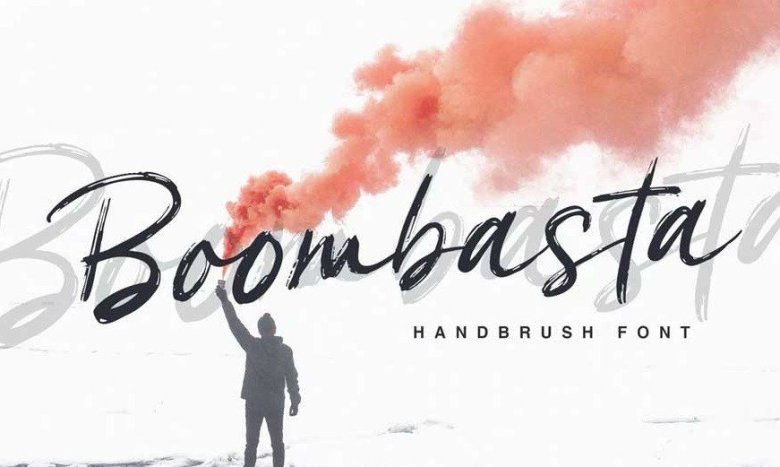
Boombasta Handbrush Font
Are you looking for a simple masculine handbrush font? We can help! Try to download our Boombasta font.
The font is suitable to use for casual purpose.
Try to use it on Wedding invitation, photography, branding and signature to see the best of it.